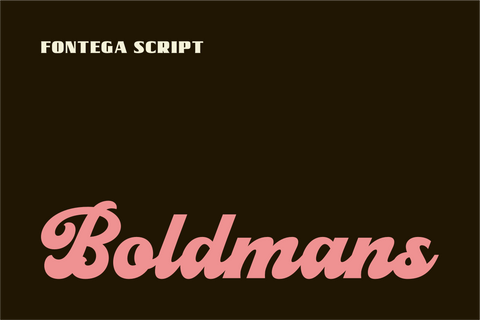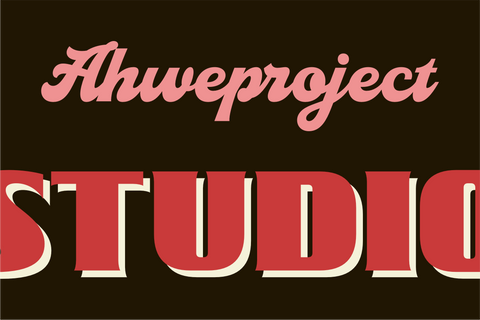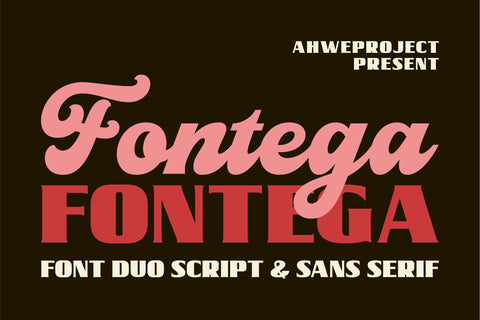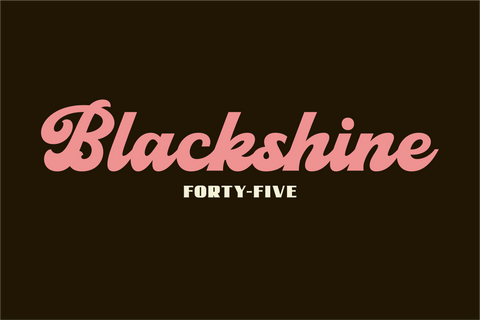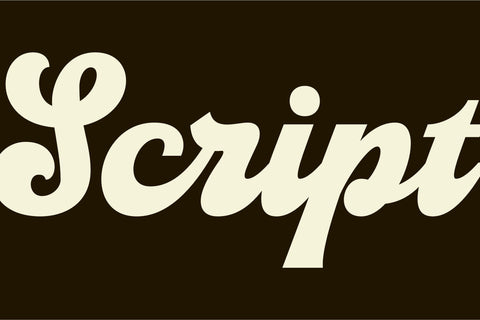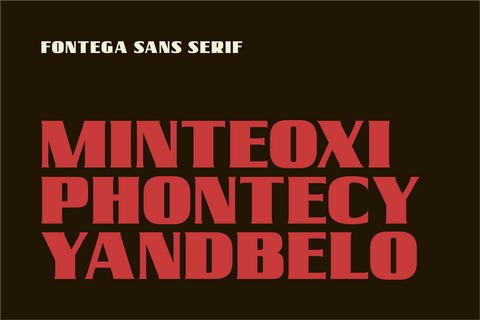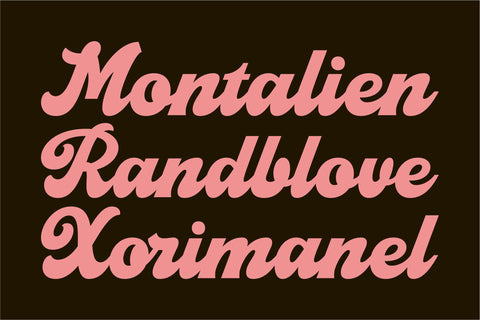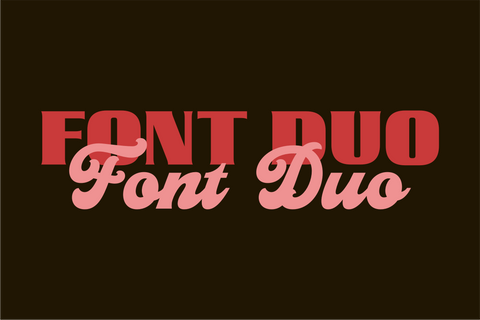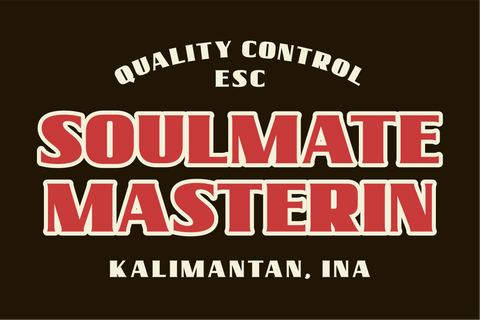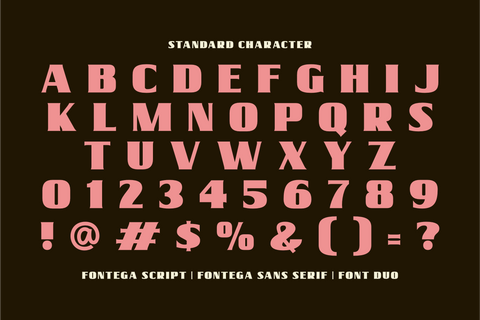
Fontega
Introducing, Fontega – a luxurious font duo that brings the classy and luxury look. It contains two fonts, script and serif which perfectly paired. They works perfect for you who needs a typeface for headline, logotype, apparel, invitation, branding, packaging, advertising etc. This typeface is comes in uppercase, lowercase, punctuation, symbols, numerals also support multilingual.